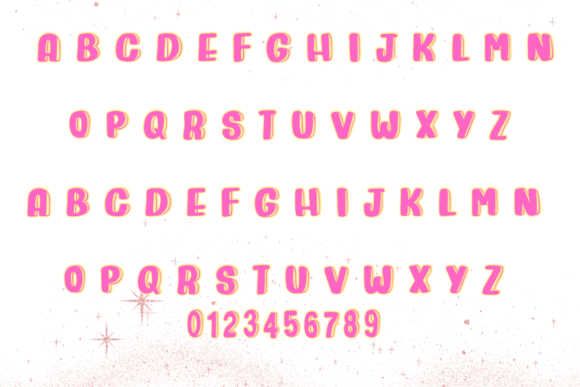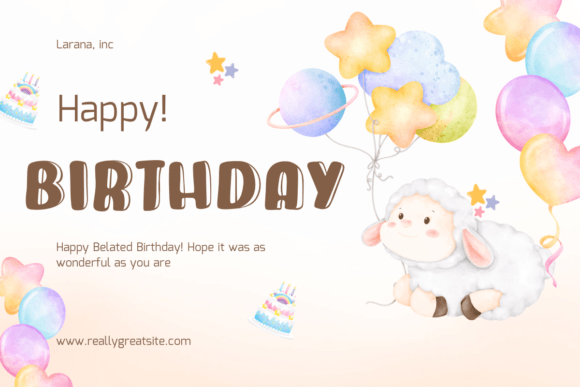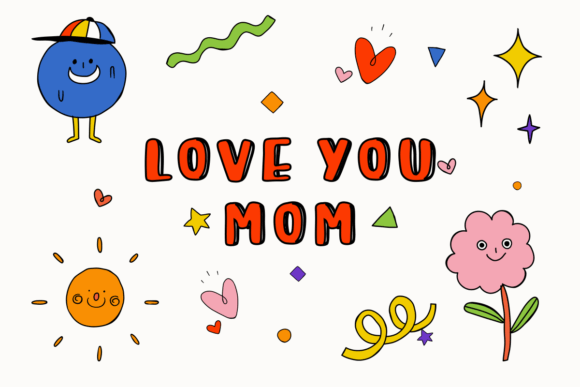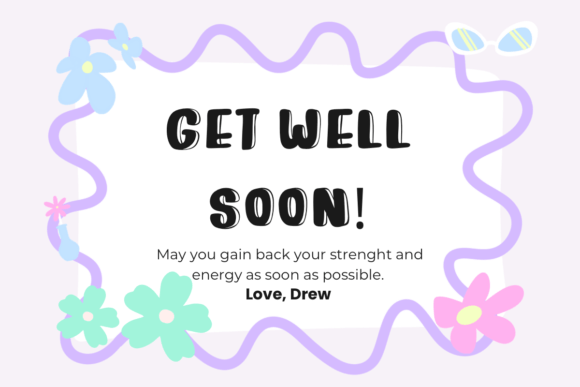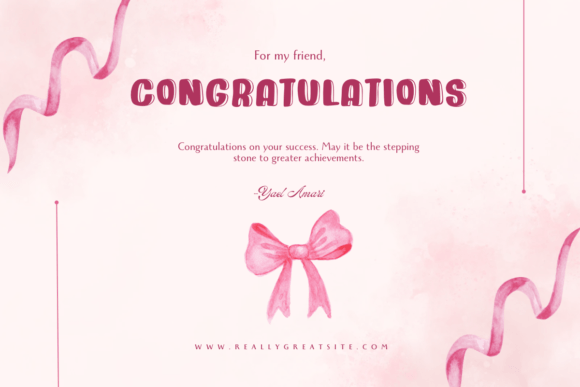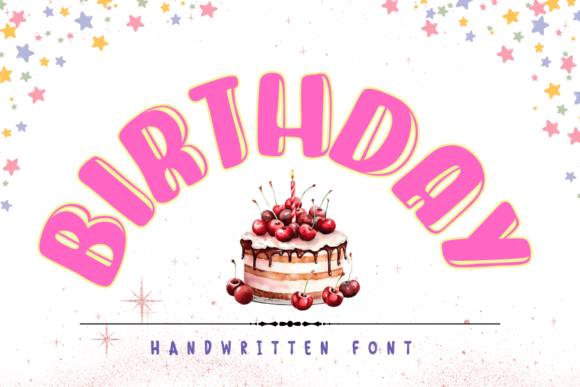
Introducing Birthday Font: The Ultimate Addition to Your Design Collection
Are you tired of using the same old fonts in your designs? Do you want to add a touch of whimsy and joy to your creative projects? Look no further than Birthday Font, a cute and quirky handwritten font that’s sure to make your designs stand out. In this article, we’ll dive into the world of Birthday Font, exploring its features, benefits, and uses, and providing you with tips and inspiration on how to make the most of this beautiful display font.
The Birth of Birthday Font
Birthday Font is a carefully crafted handwritten font that’s designed to bring a sense of joy and playfulness to your designs. With its unique and quirky style, this font is perfect for designers and crafters who want to add a personal touch to their work. Whether you’re creating invitations, greeting cards, or social media graphics, Birthday Font is the perfect choice.
So, what makes Birthday Font so special? Here are just a few of its key features:
- Cute and Quirky Style: Birthday Font has a unique and playful style that’s sure to capture the attention of your audience.
- Handwritten with Love: This font is carefully crafted to mimic the look and feel of handwritten text, adding a personal touch to your designs.
- Display Font: Birthday Font is a display font, making it perfect for headlines, titles, and other prominent text elements.
Benefits of Using Birthday Font
So, why should you choose Birthday Font for your designs? Here are just a few of the benefits of using this beautiful font:
- Adds a Touch of Whimsy: Birthday Font adds a playful and whimsical touch to your designs, making them more engaging and fun.
- Perfect for Creative Projects: This font is ideal for designers and crafters who want to add a personal touch to their creative projects.
- Versatile: Birthday Font can be used in a variety of contexts, from invitations and greeting cards to social media graphics and more.
- Easy to Read: Despite its playful style, Birthday Font is easy to read, making it perfect for use in a variety of applications.
Using Birthday Font in Your Designs
So, how can you use Birthday Font in your designs? Here are a few ideas to get you started:
- Invitations: Use Birthday Font to create custom invitations for parties, weddings, and other special events.
- Greeting Cards: Add a personal touch to your greeting cards with Birthday Font, perfect for birthdays, holidays, and other celebrations.
- Social Media Graphics: Use Birthday Font to create eye-catching social media graphics that are sure to grab the attention of your followers.
- Signs and Banners: This font is perfect for creating custom signs and banners for parties, events, and more.
Tips and Tricks for Working with Birthday Font
Here are a few tips and tricks to help you get the most out of Birthday Font:
- Experiment with Colors: Try pairing Birthday Font with different colors to create a unique and eye-catching look.
- Play with Size: Experiment with different font sizes to create visual interest and hierarchy in your designs.
- Add Texture and Patterns: Consider adding texture and patterns to your designs to give them an extra boost of visual interest.